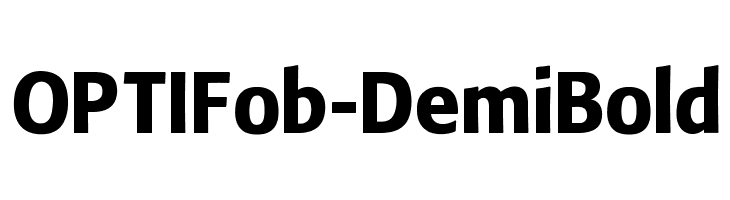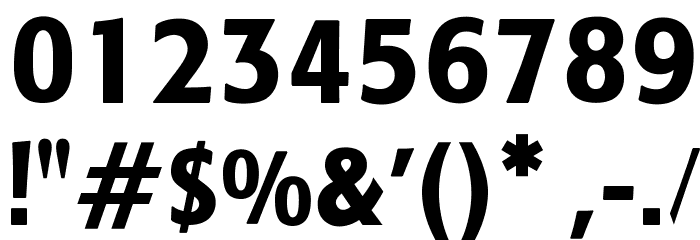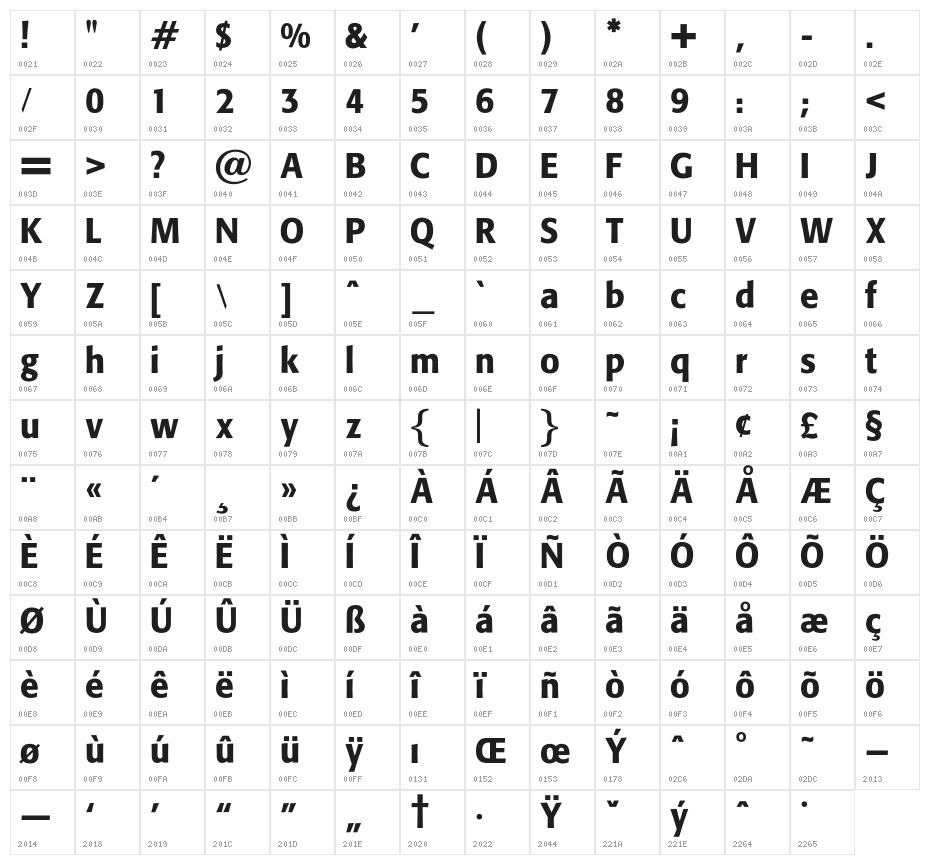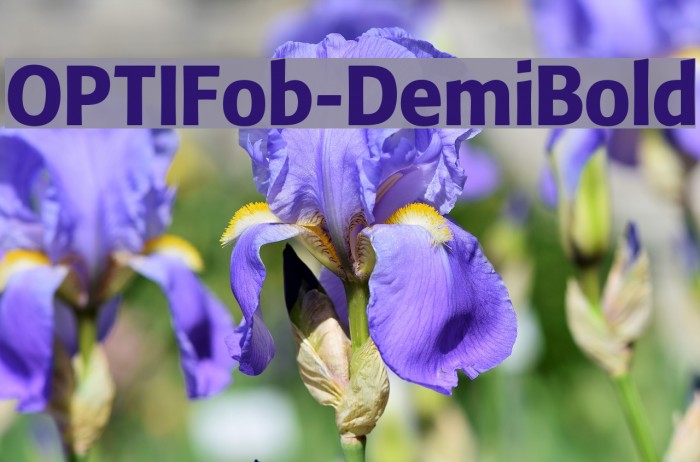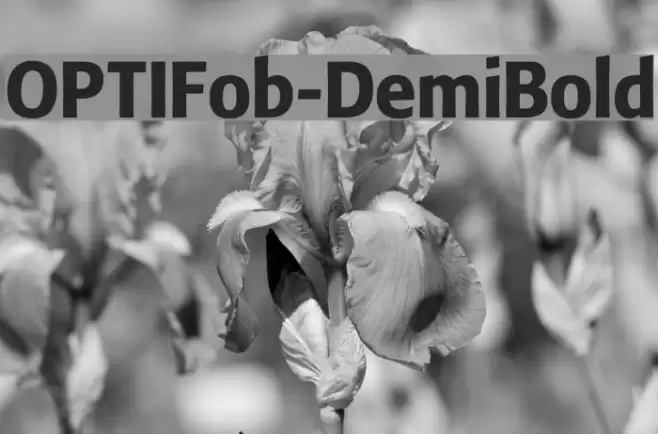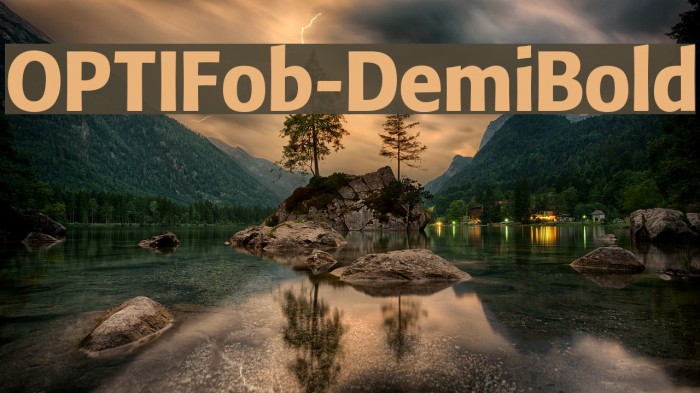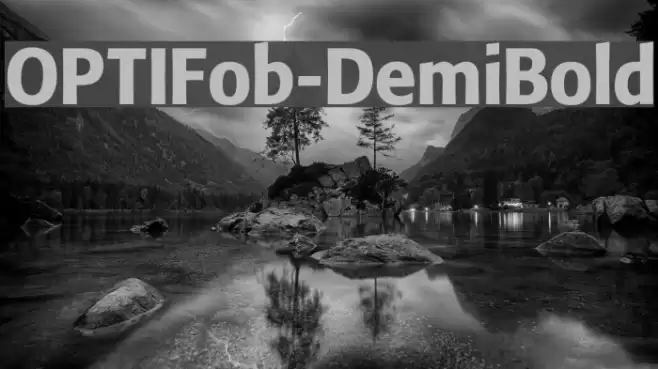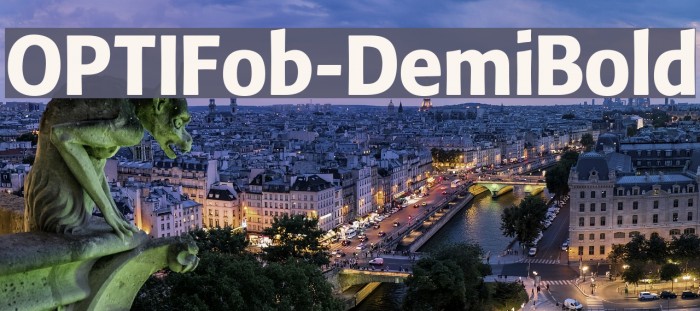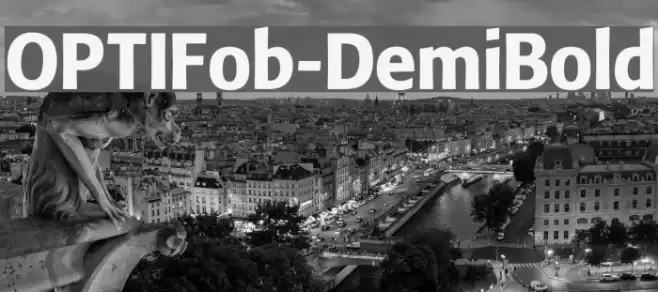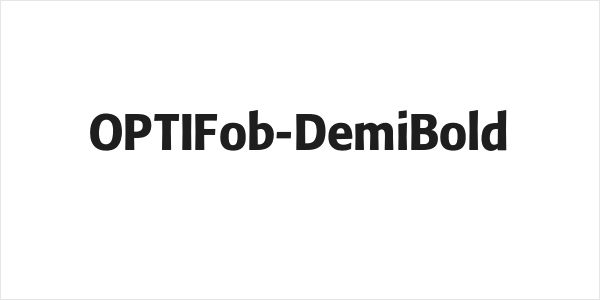
OPTIFob-DemiBold Font
OPTIFob-DemiBold Description
This font features bold, clean lines with a strong presence, making it highly legible and impactful. The characters are well-proportioned, with a consistent stroke width that gives it a uniform appearance. The uppercase letters are robust and commanding, while the lowercase letters maintain a balanced and harmonious look. The numerals are clear and straightforward, ensuring easy readability. Special characters are designed to complement the overall style, adding versatility to the font's use. This font is ideal for making a statement with its bold and assertive design.
| Proposed Projects | Ideal for headlines, posters, branding, and advertising where a strong visual impact is needed. |